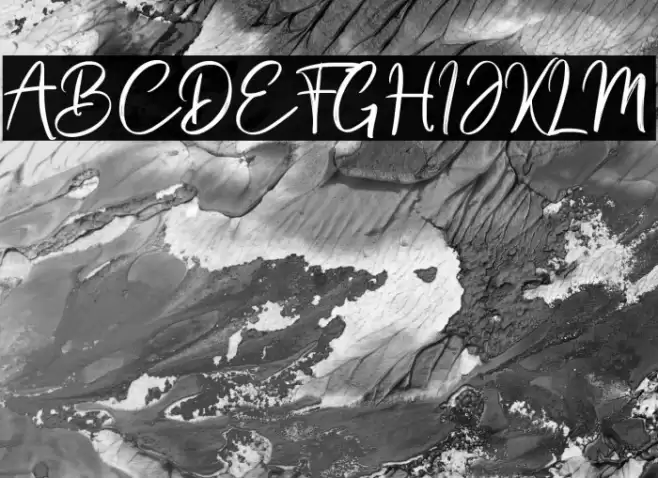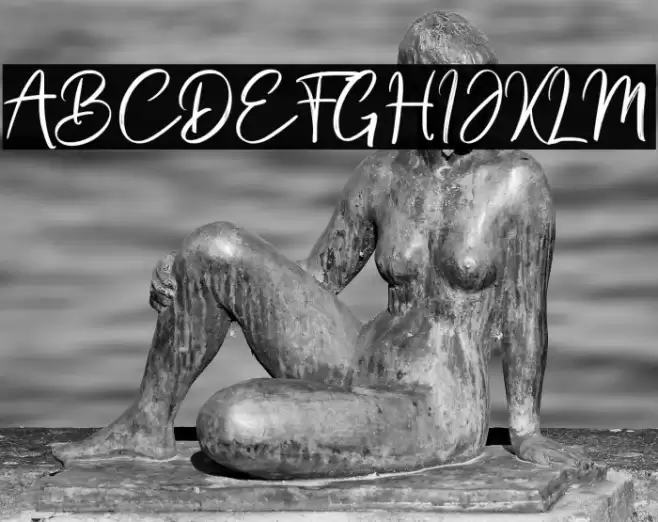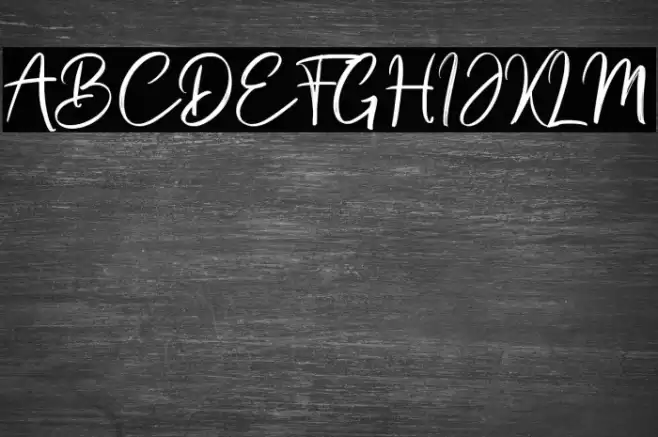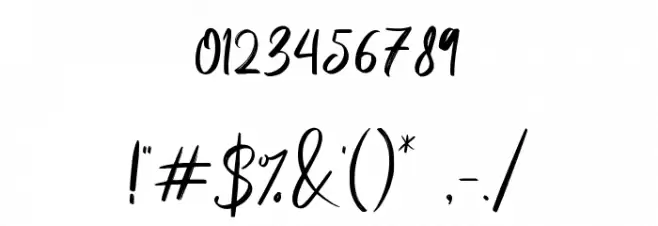
Felton Dafana Font
Felton Dafana Description
This font features a flowing, cursive style with elegant, sweeping strokes that give it a handwritten appearance. The uppercase letters are bold and dynamic, with a slight slant that adds to the fluidity of the design. The lowercase letters maintain a consistent style, with smooth curves and a natural, organic feel. The numerals are clear and legible, matching the overall aesthetic of the font. Special characters are thoughtfully designed to complement the letters, ensuring a cohesive look across all text. This font's artistic flair makes it suitable for creative and expressive projects.
A cursive, handwritten-style font with elegant, sweeping strokes from Uncategorized fonts.
- Font: Felton Dafana
- Proposed Projects: Ideal for wedding invitations, greeting cards, logos, and branding materials that require a personal touch.
- Use Case: Logos, Invitations, Greeting Cards